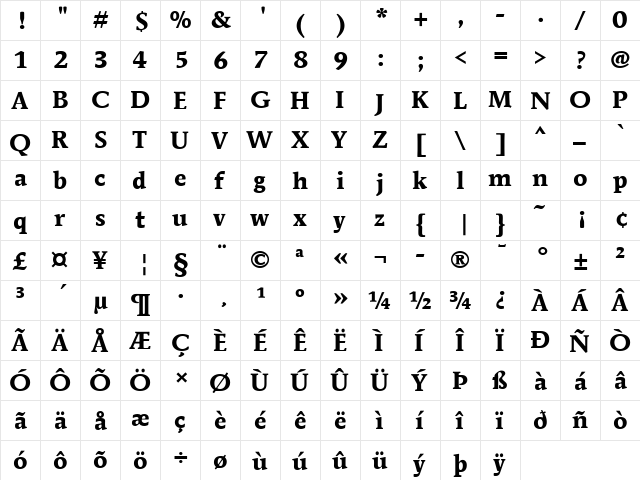
Mendoza Roman ITC Roman Bold
Design Context for Mendoza Roman ITC Typeface
Mendoza Roman ITC is a composed and adaptable typeface that performs quietly and consistently across a wide range of design contexts. The heavy weight commands attention and anchors typographic hierarchies.